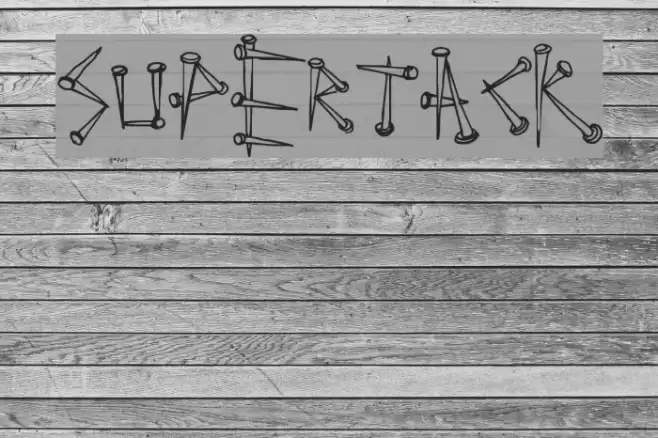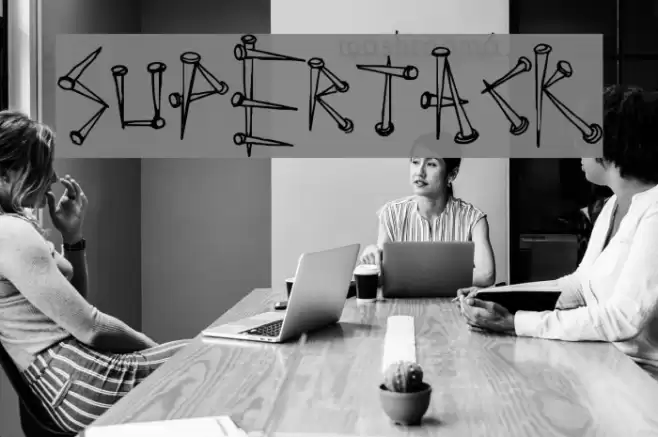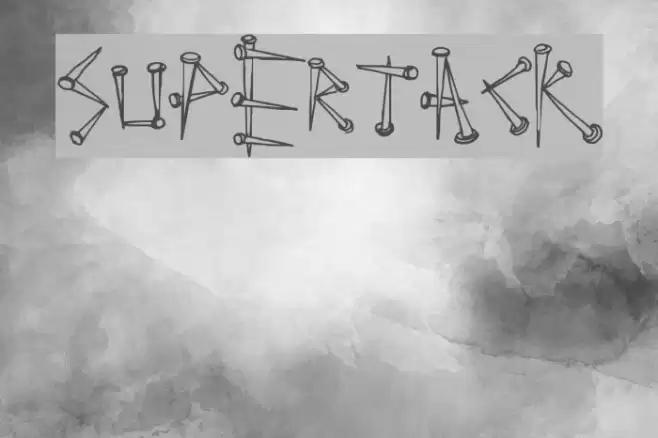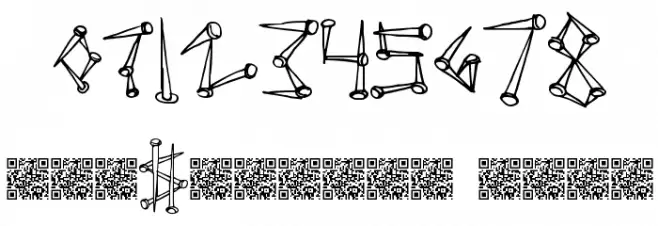
SuperTack Font
SuperTack Description
This unique and creative font is designed to resemble nails or tacks arranged to form each character. The letters are constructed with a playful and artistic flair, giving the impression of a three-dimensional, hand-crafted look. The font is highly decorative, with each character featuring varying angles and lengths of the nail-like elements, creating a dynamic and eye-catching appearance. The overall style is whimsical and unconventional, making it stand out in any design project. The characters maintain a consistent size, but the irregular shapes and angles add a sense of movement and energy.
A decorative font styled to look like nails or tacks forming each character from Decorative fonts.
- Proposed Projects: Ideal for creative projects such as posters, event invitations, or branding for DIY or hardware-related businesses.